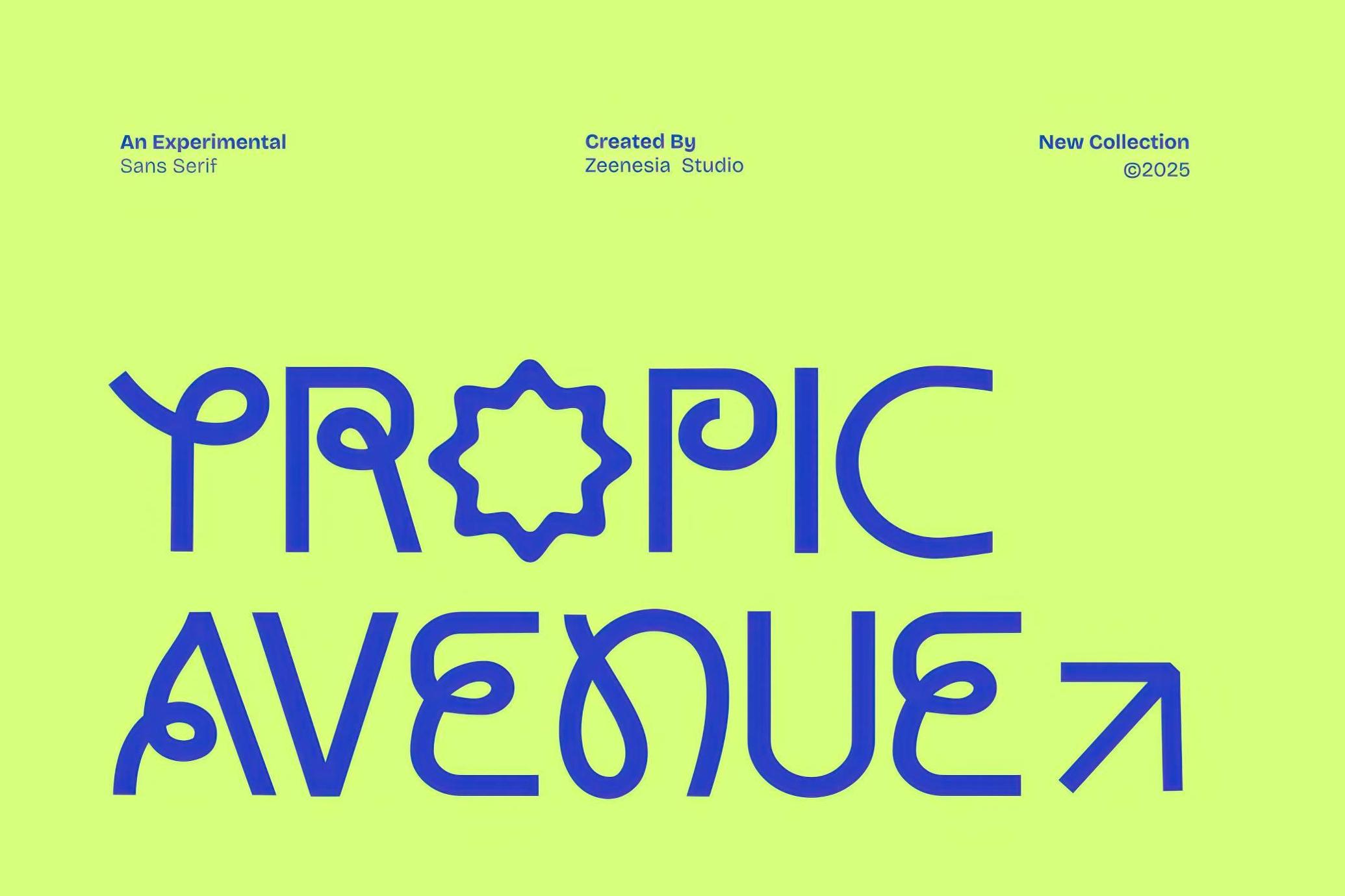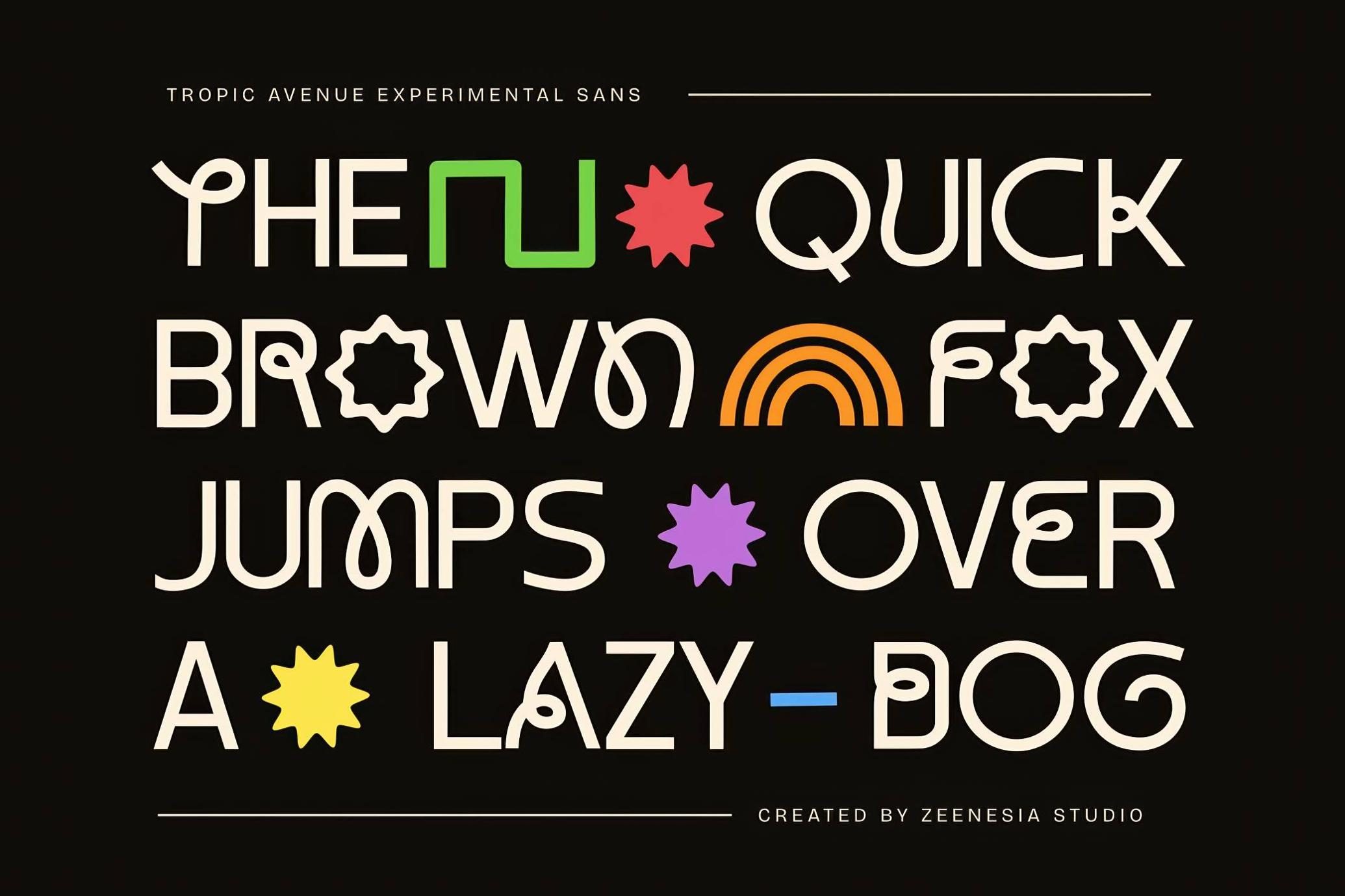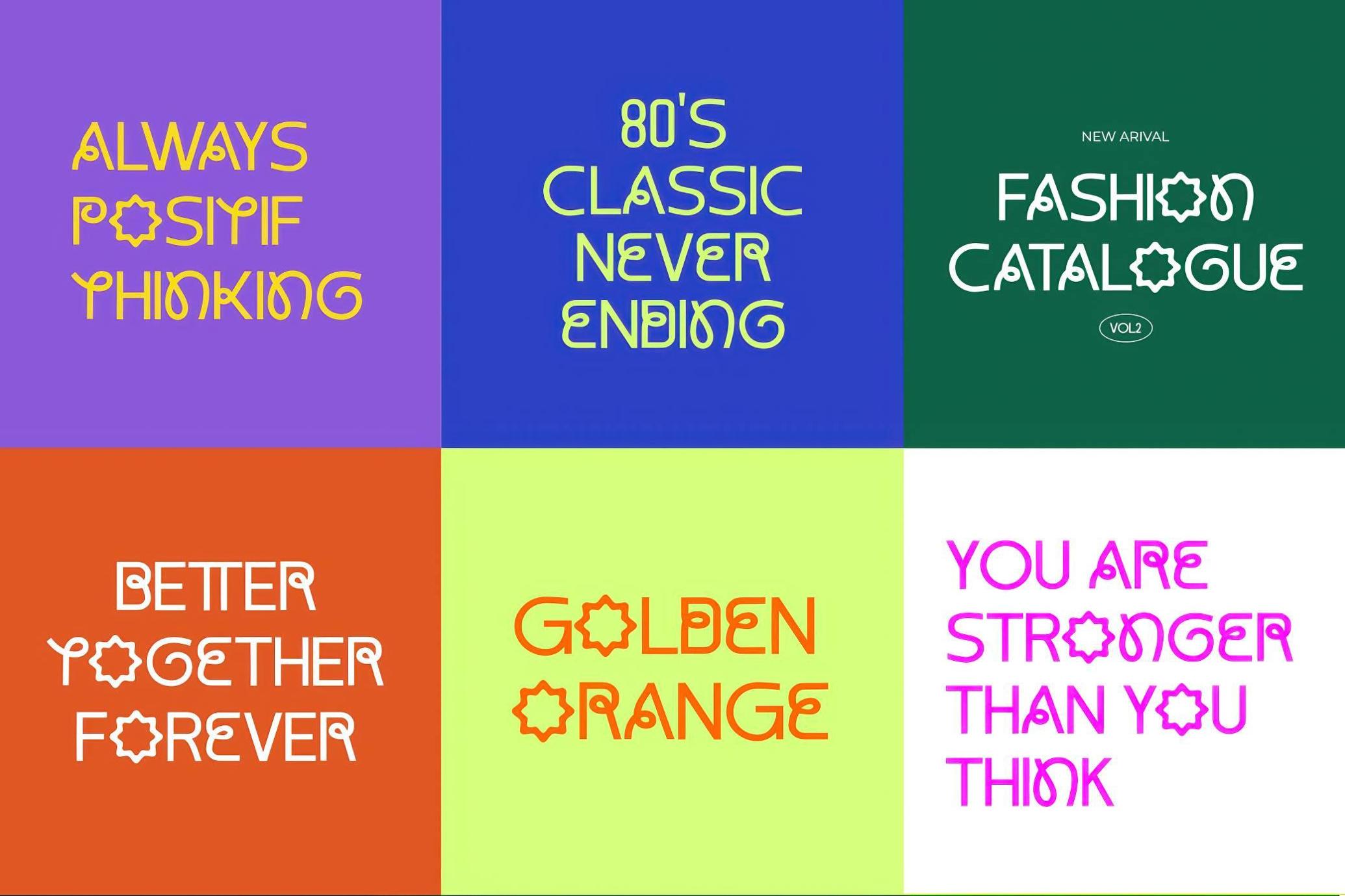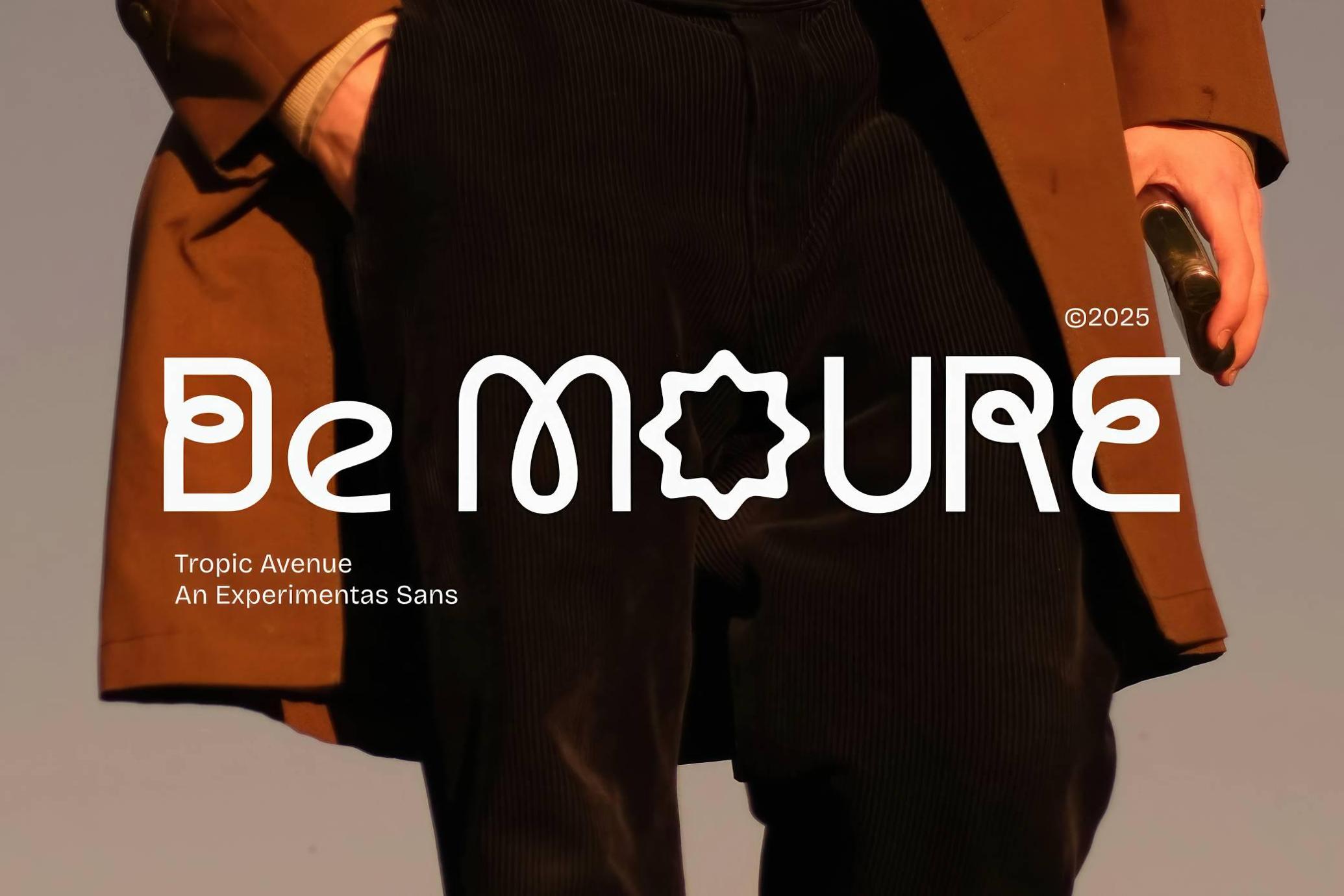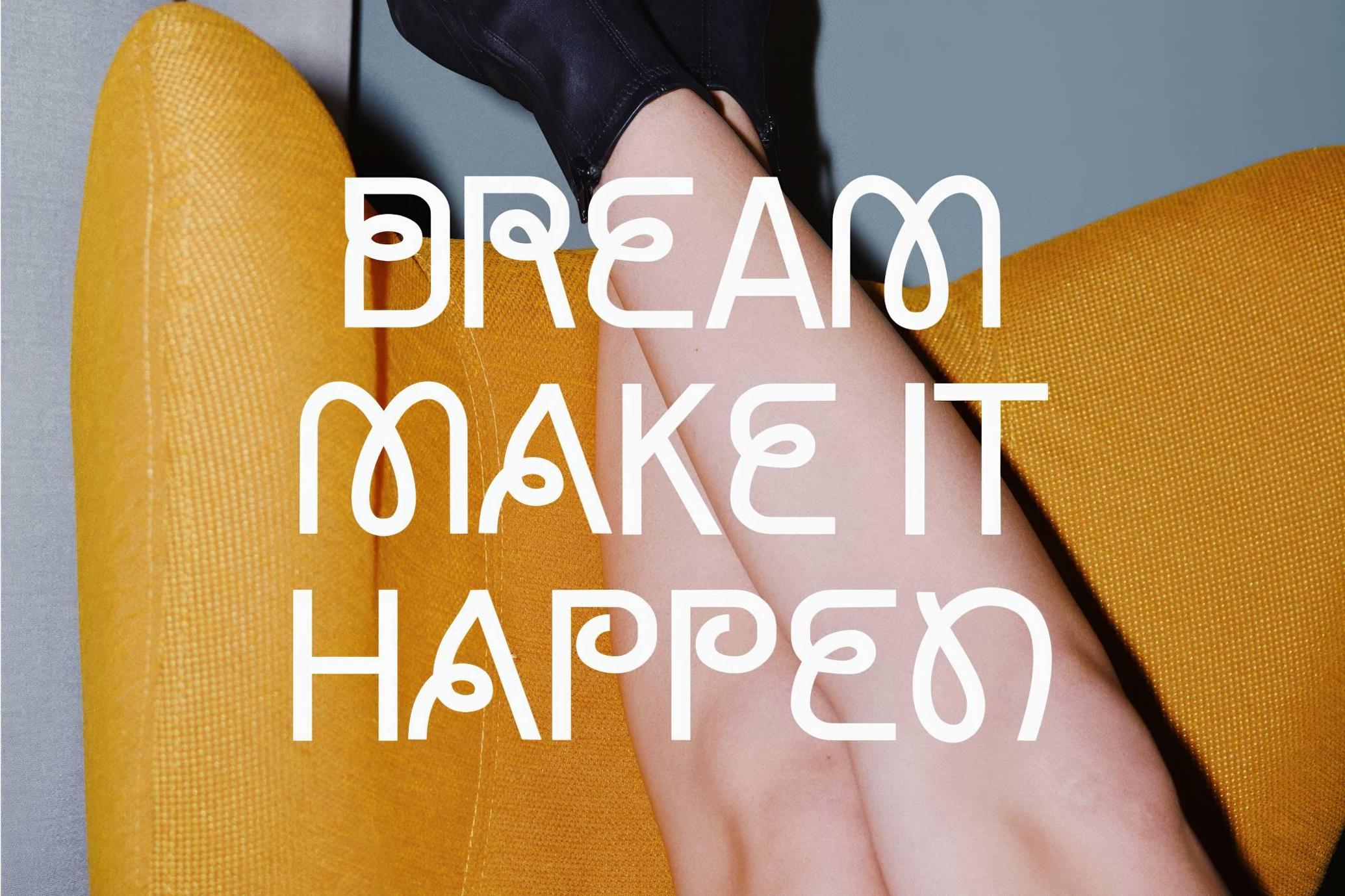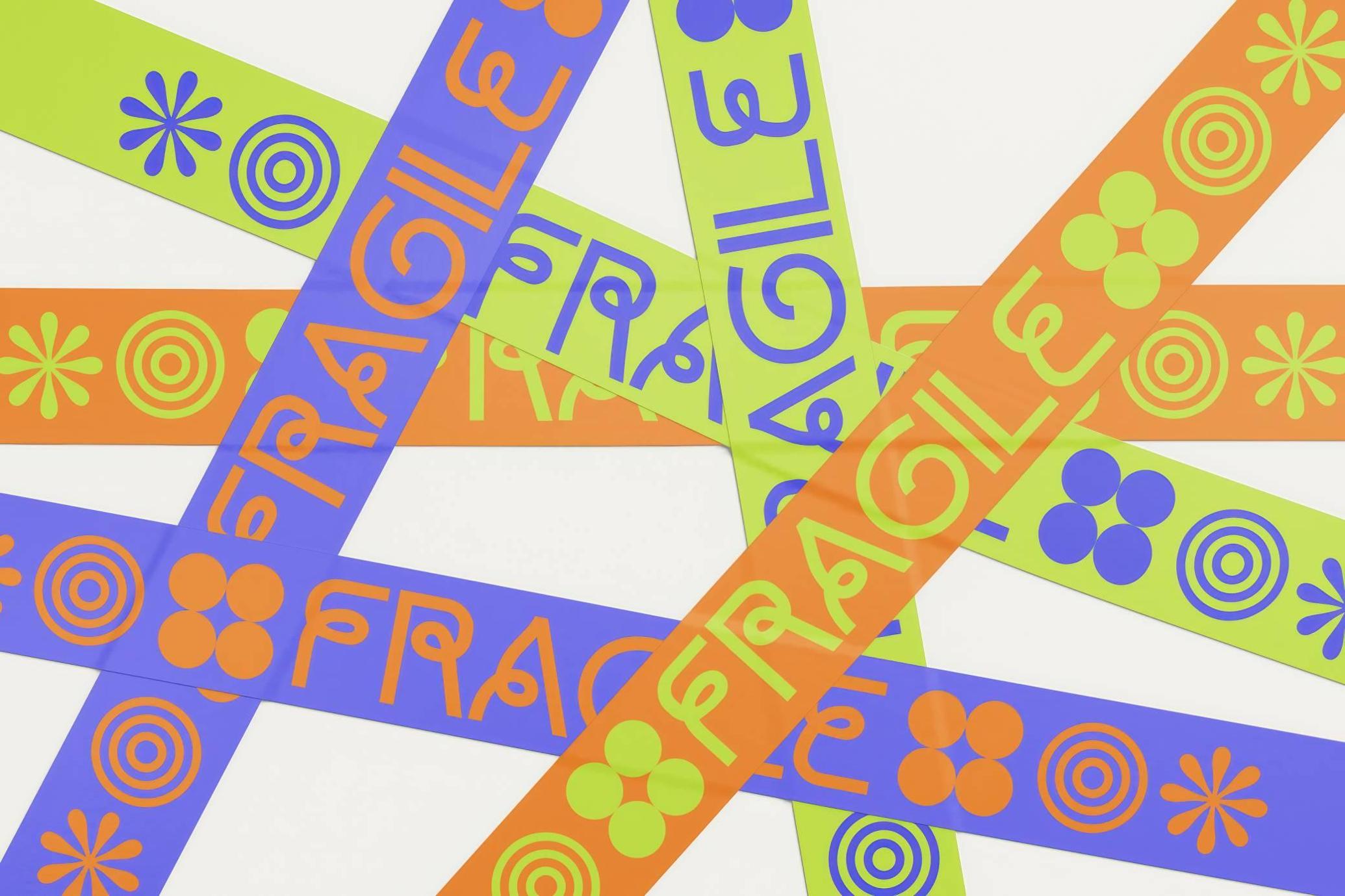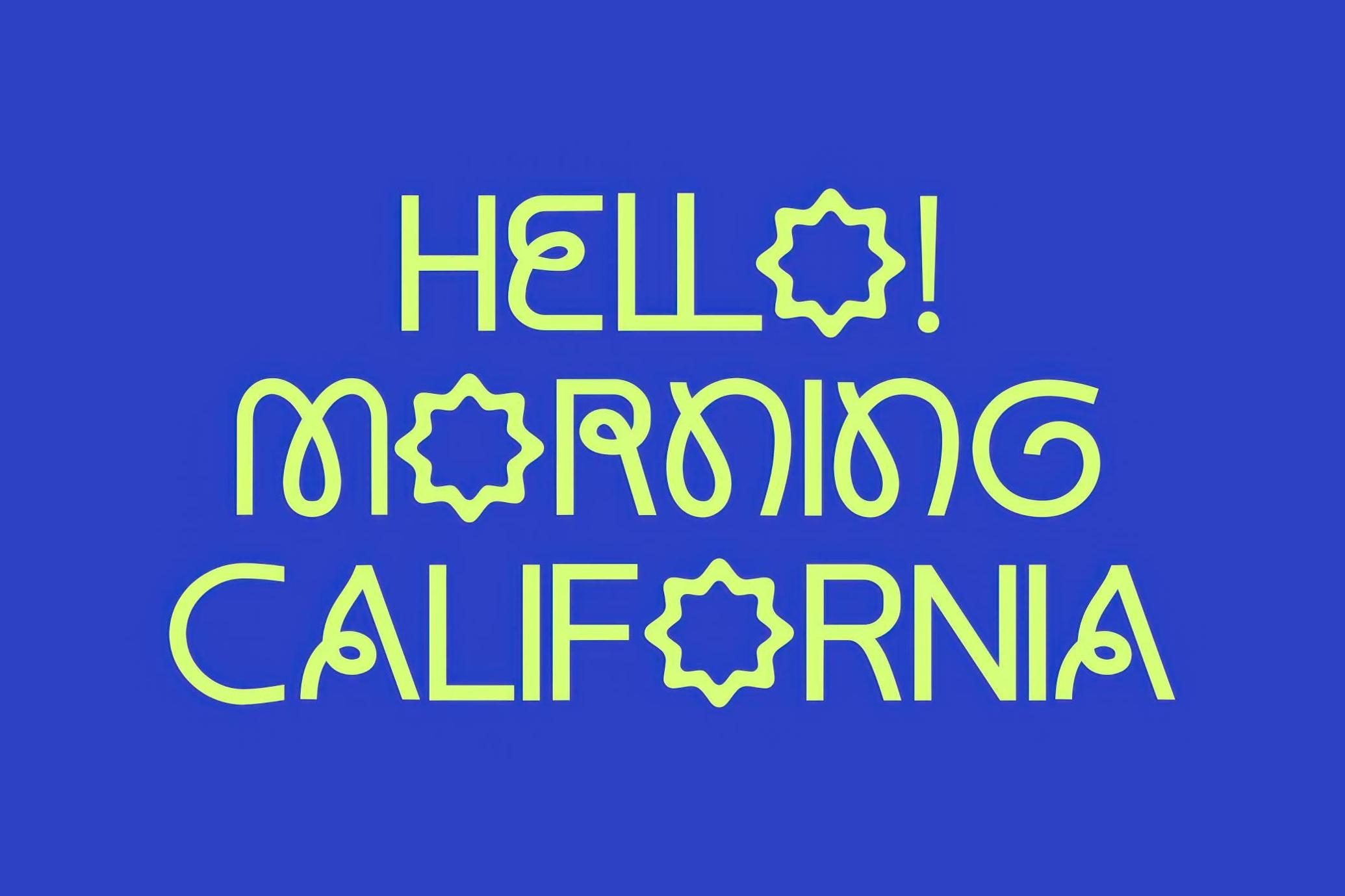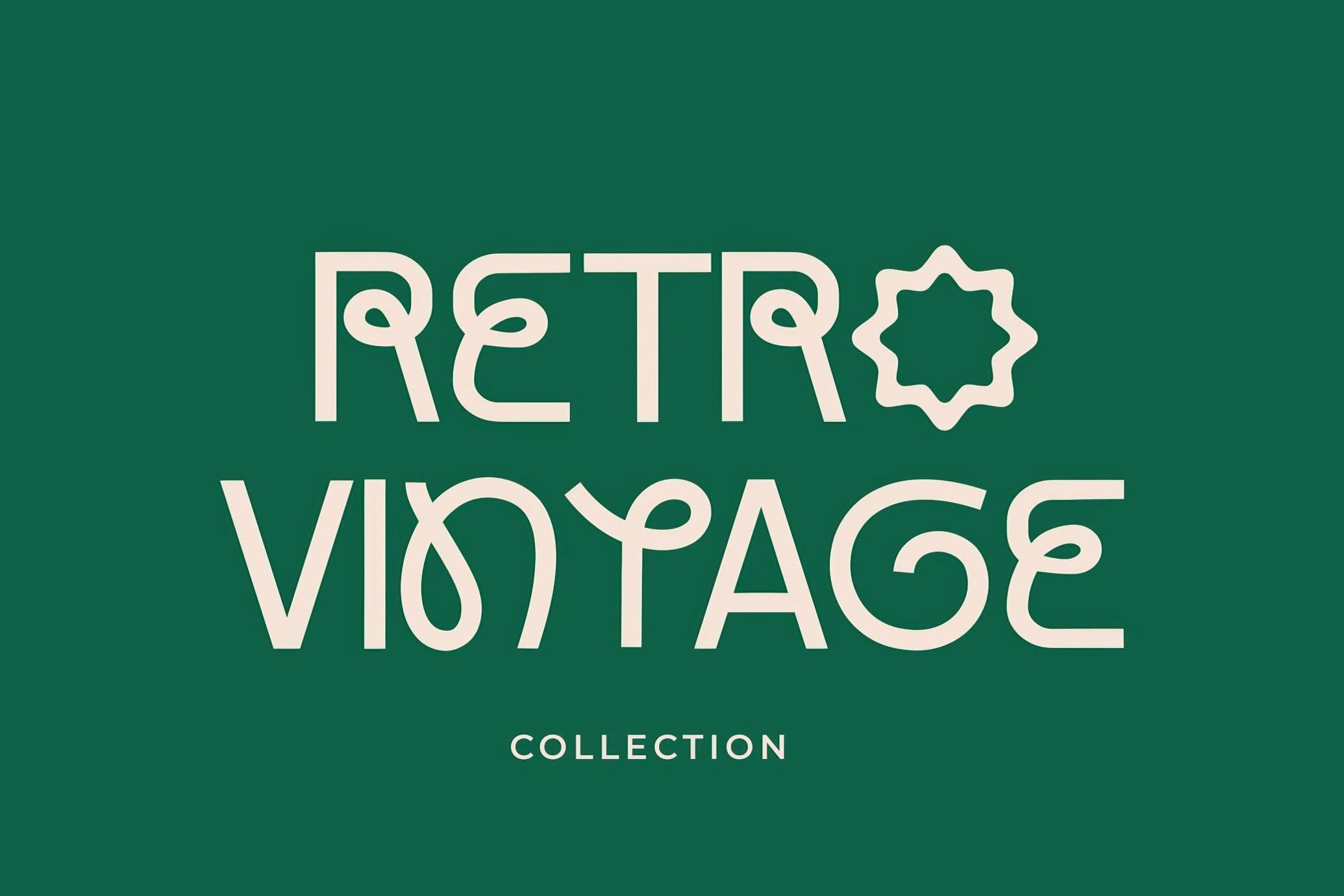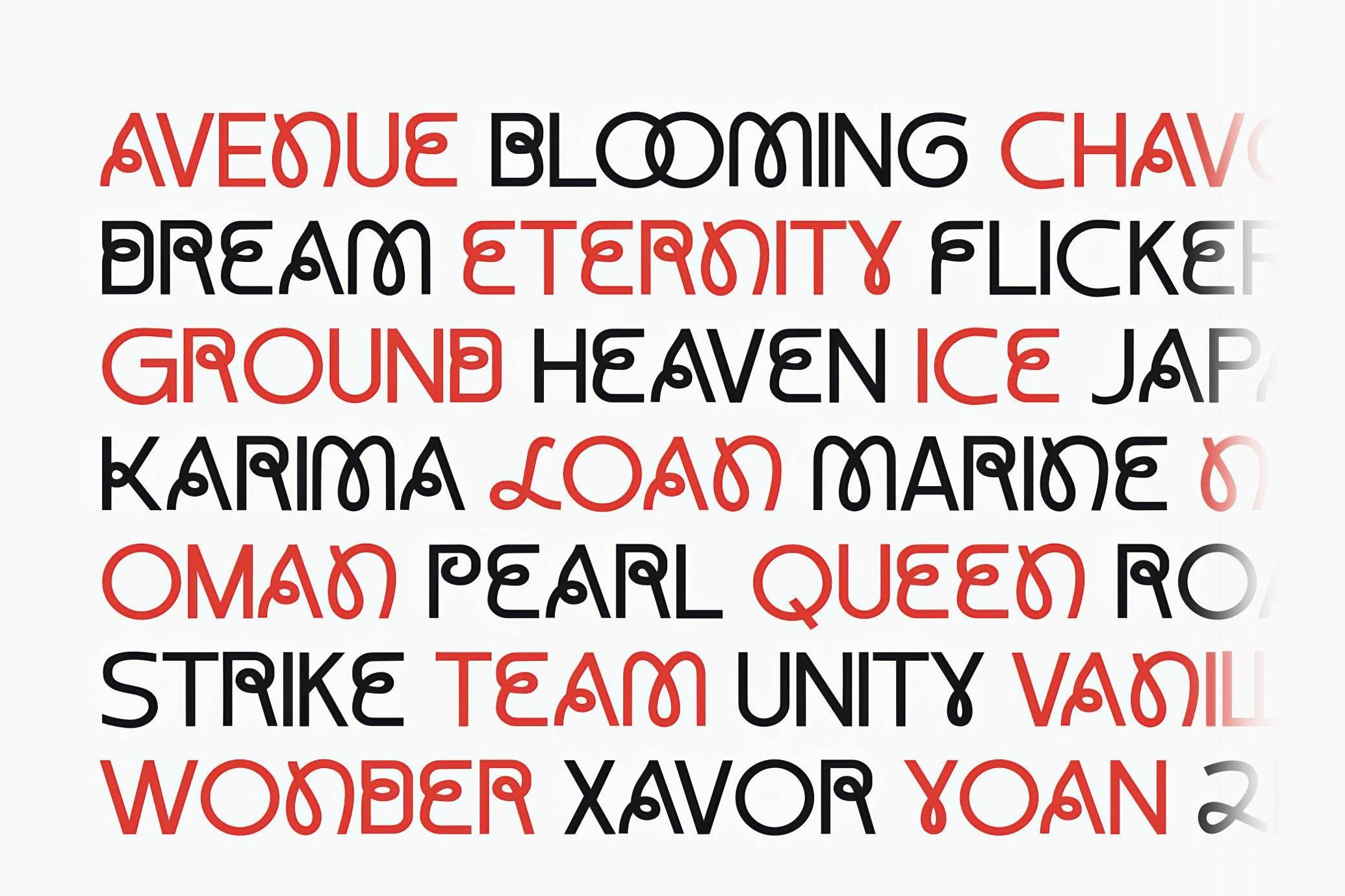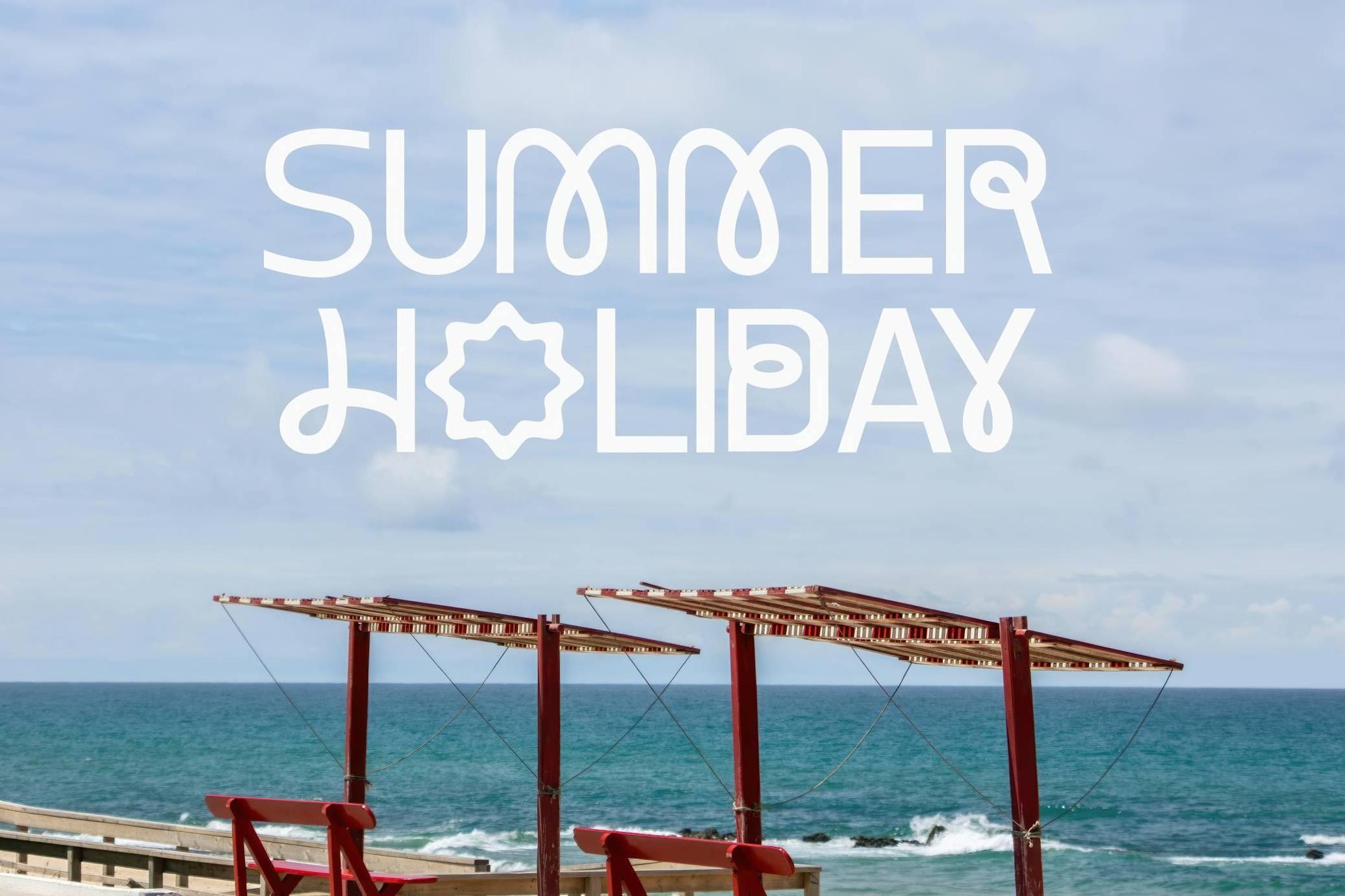
Tropic Avenue | Experimental Sans Serif
Tropic Avenue leans into the playful side of modern type. With its curled terminals, looping alternates, and sunny disposition, it feels at home in bold editorial headlines, streetwear campaigns, or album covers that nod to retrofuturism and global pop culture. Its experimental structure pulls from both signage typography and expressive hand-drawn forms, as if 1960s beach motel signs have been reinterpreted for 2025.
The set of glyphs includes uppercase and lowercase characters, as well as stylistic alternates for both cases, punctuation, numerals, ligatures, and multilingual support.